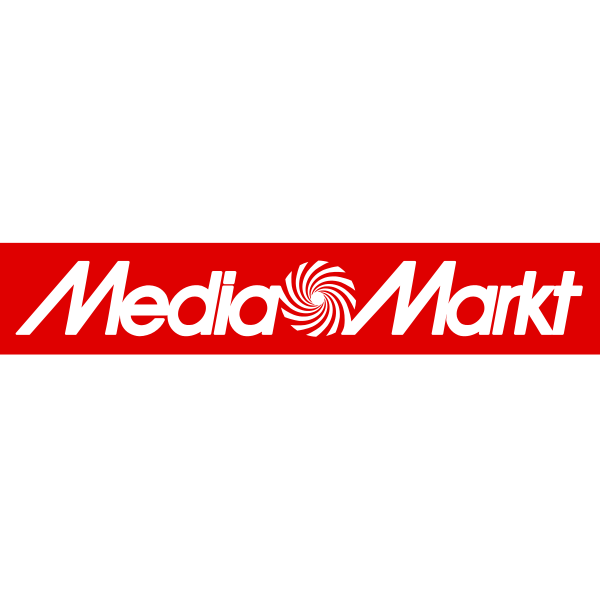
Media Markt Font
Fonts in UseMedia Markt is a German multinational retailer that specializes in consumer electronics. It was founded in 1979 by Leopold Stiefel and Walter Gunz, and currently has over 1,000 stores across Europe and Asia.
The Media Markt logo features the typeface ITC Avant Garde Gothic Medium Oblique, which was designed in 1970 by Herb Lubalin and Tom Carnase. The typeface is based on Lubalin's logo for Avant Garde Magazine.